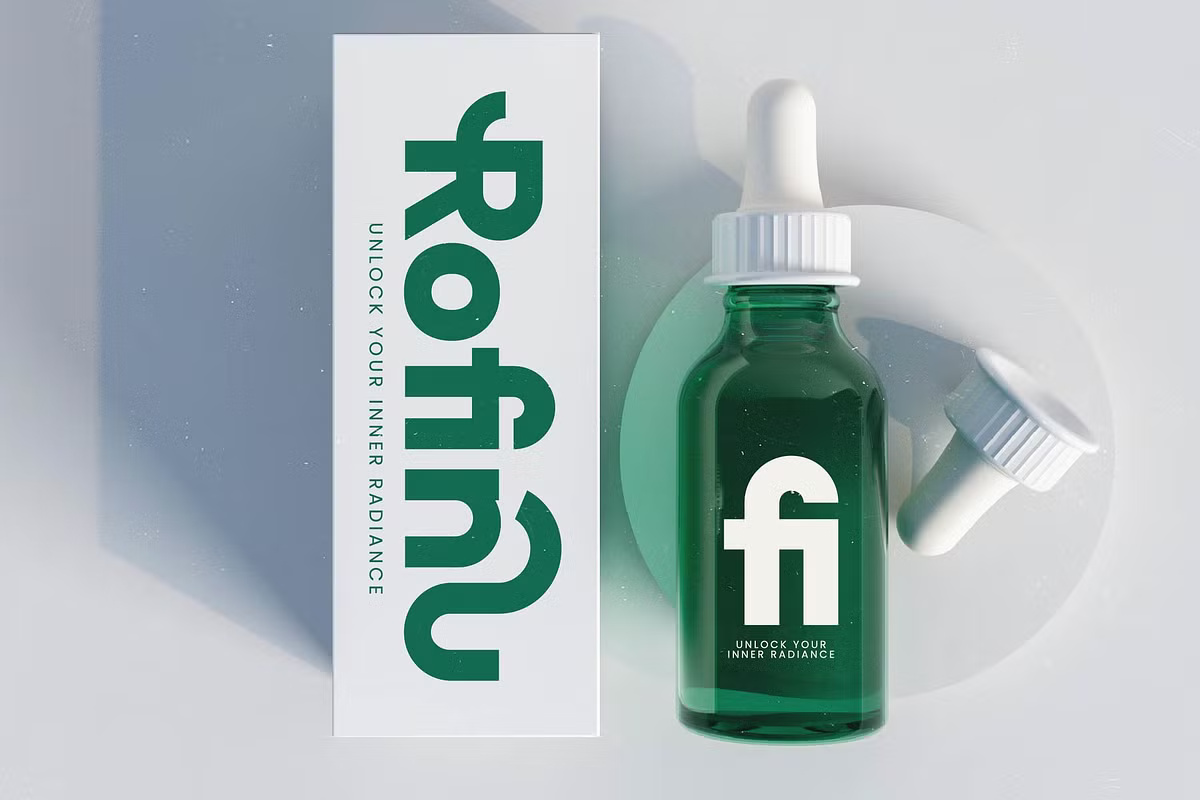
Quick Mind is a heavy, rounded sans with a lot of curl. The k on the cover loops back on itself and the d swings a long tail. A cartoon brain sits next to the name in dark green. A bottle mockup shows a fi ligature large on the label.
The full version from Timelesstype includes 14 ligatures and many alternates. The free version is a demo with uppercase, lowercase and figures. The download here is TTF. The letters are rounded at every end, which keeps the heavy weight friendly.
Best uses for Quick Mind
- Product packaging
- Mugs and homeware prints
- Friendly logos
- Book covers
- Greeting cards
Quick Mind is busy, so pair it with a calm text face. Karla works well. DM Sans suits labels and small print.
Quick Mind Display Font